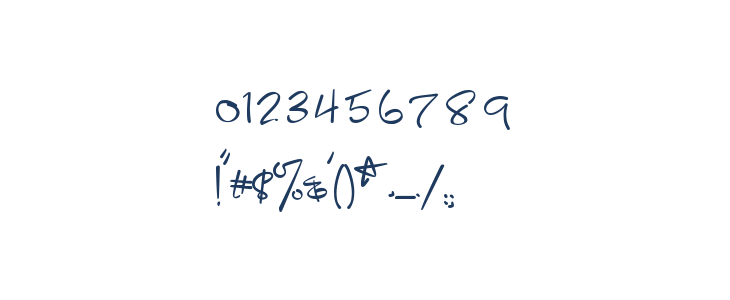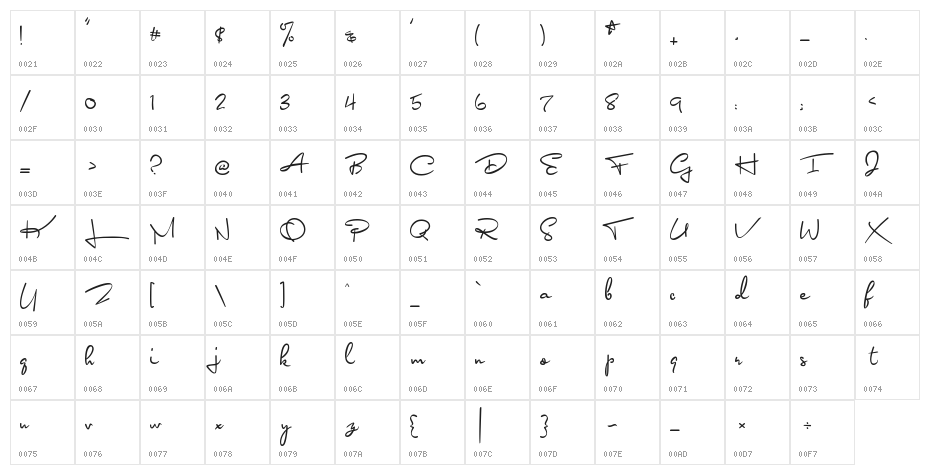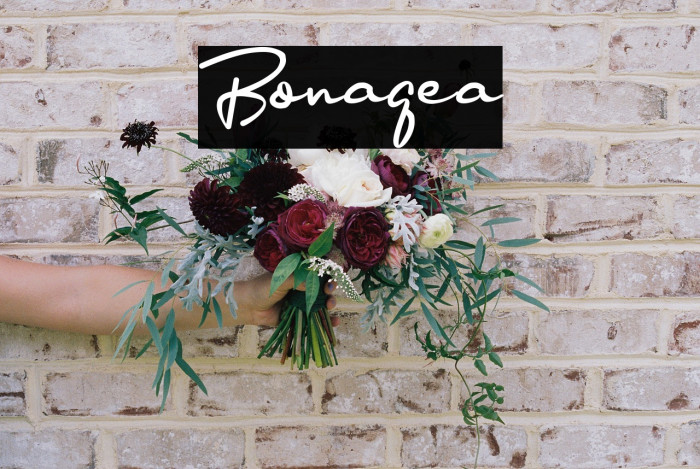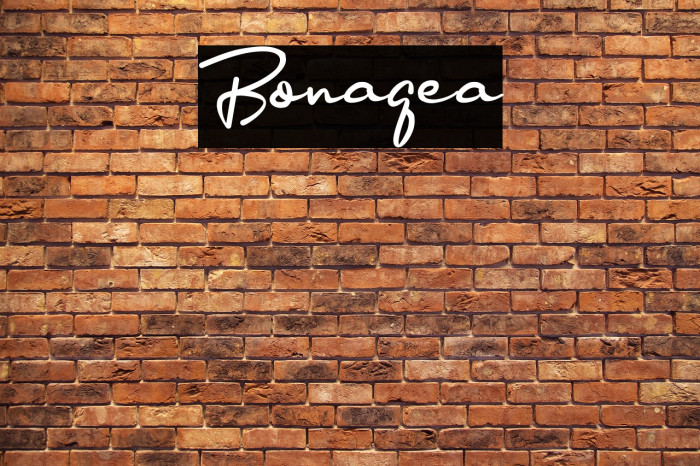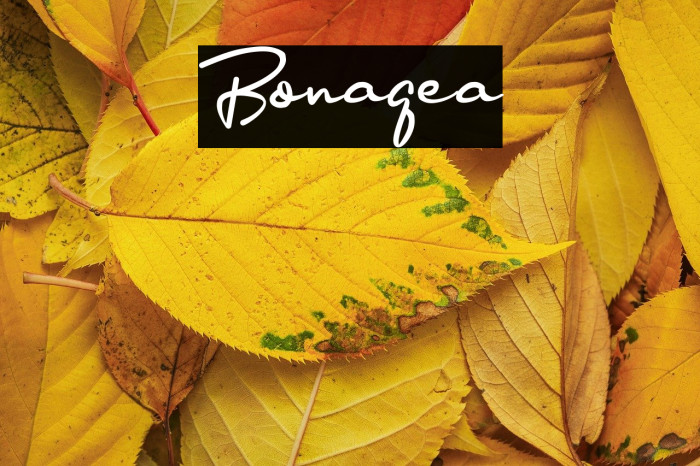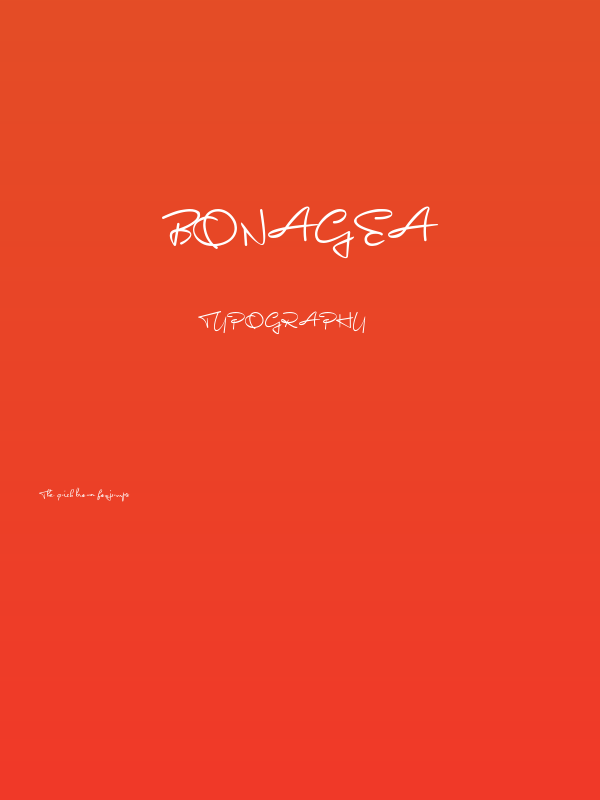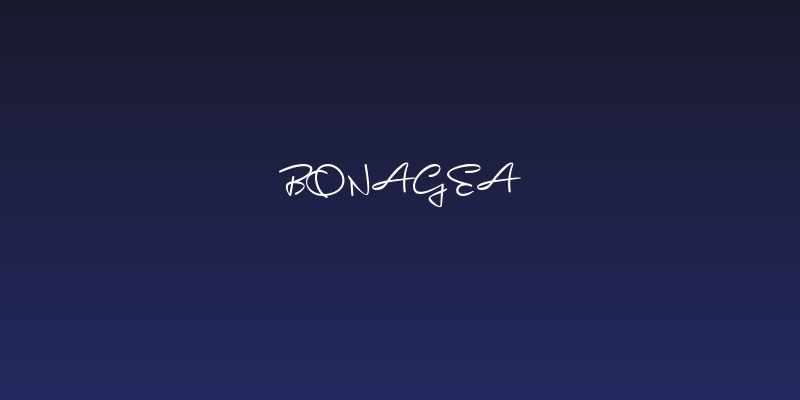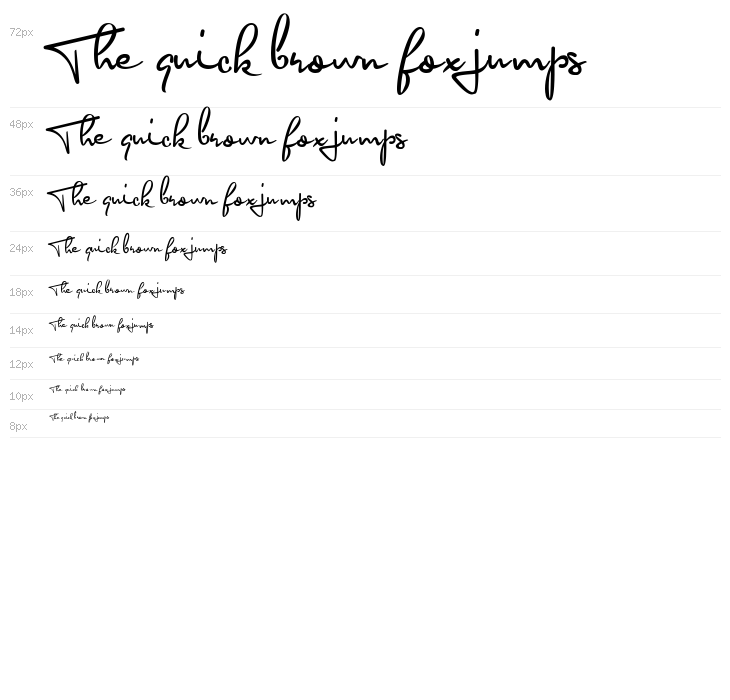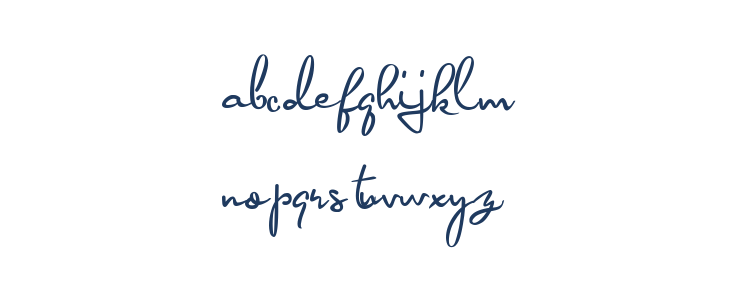
Bonagea Font
Bonagea Description
This font features a dynamic and fluid handwritten style, characterized by its elegant and flowing letterforms. The uppercase letters exhibit a sense of movement with their sweeping curves and loops, while the lowercase letters maintain a consistent and harmonious appearance. The numerals are distinct and easily readable, complementing the overall aesthetic. Special characters are creatively designed, adding a playful touch to the font. The strokes vary in thickness, providing a natural and organic feel that enhances its handwritten quality. This font is perfect for projects that require a personal and artistic touch.
| Use Case | Logos, Invitations, Artistic projects |
| Proposed Projects | Ideal for invitations, greeting cards, personal branding, and artistic projects. |